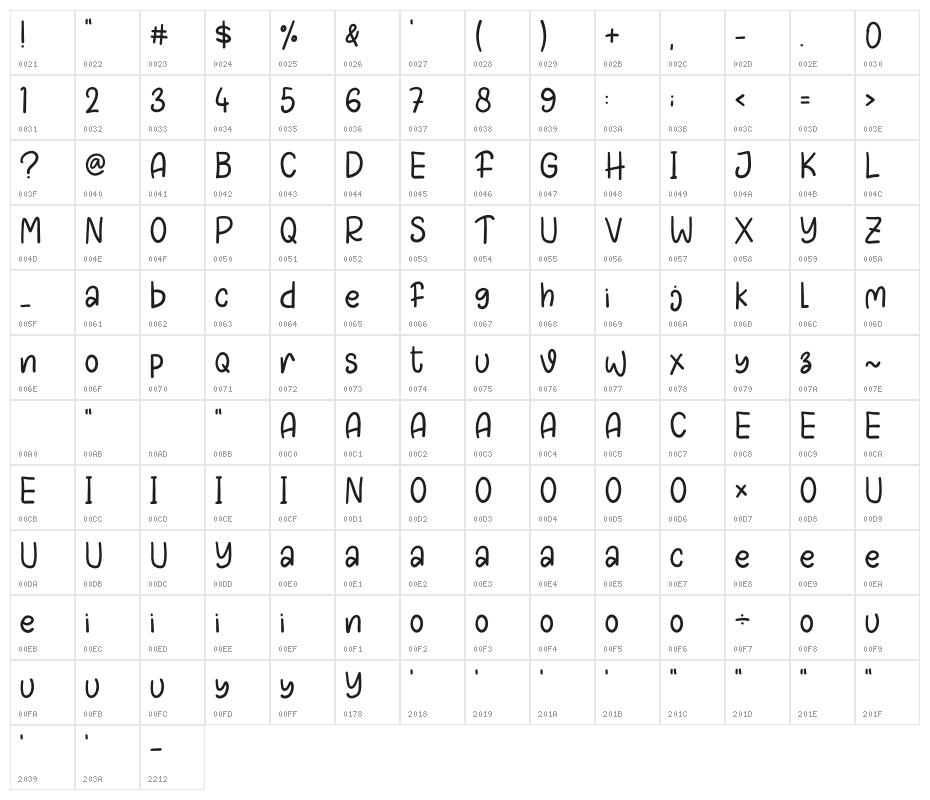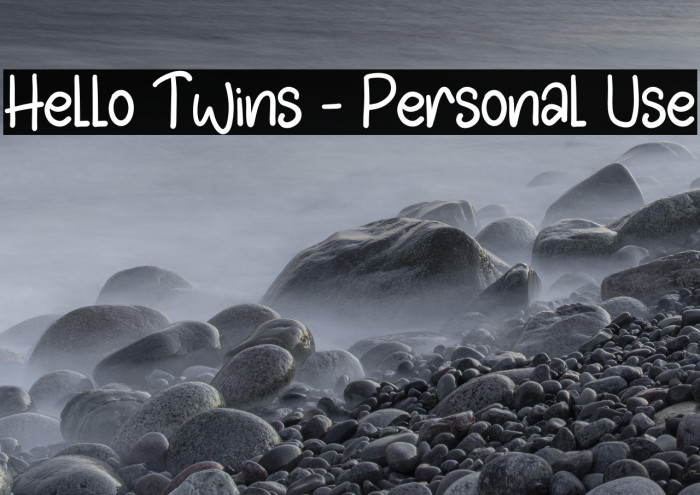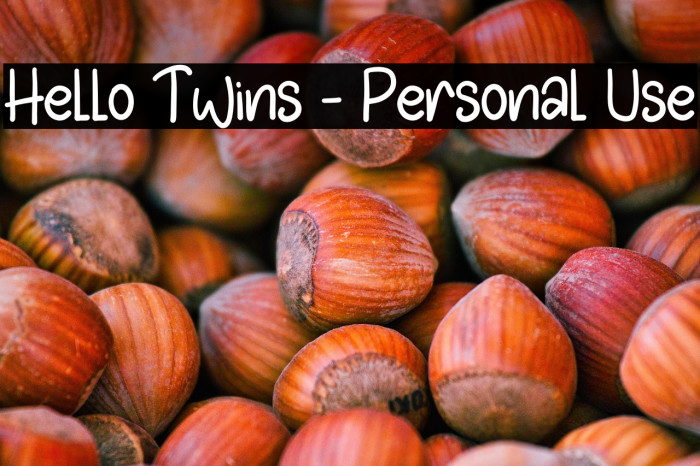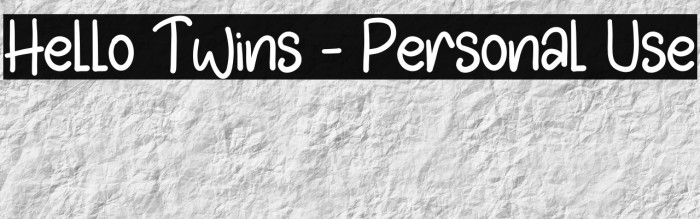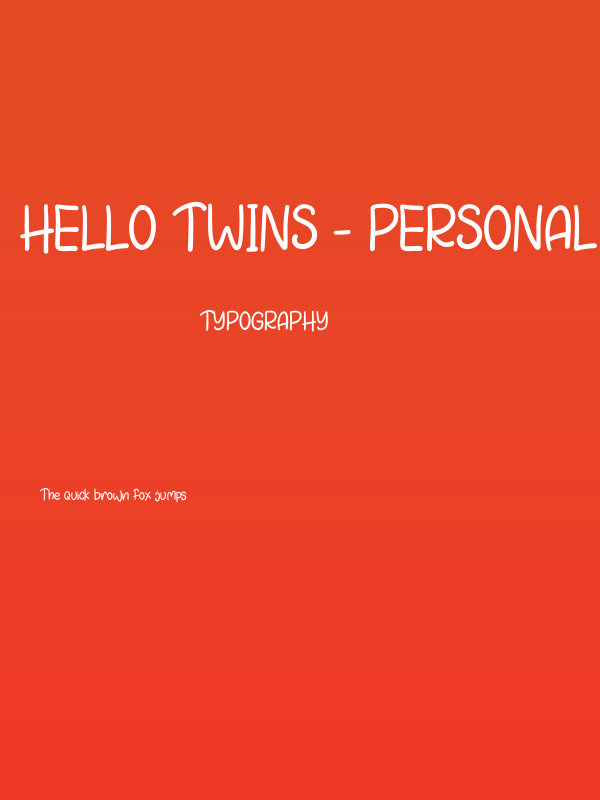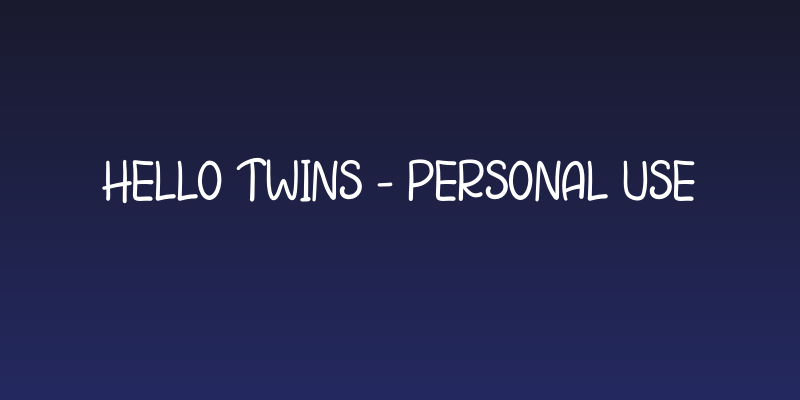
Hello Twins - Personal Use Font
Hello Twins - Personal Use Description
This playful and whimsical font features rounded, smooth edges with a hand-drawn appearance. The characters are slightly irregular, giving them a friendly and approachable feel. The uppercase and lowercase letters maintain a consistent style, with a slight slant that adds to the casual aesthetic. Numbers and special characters are designed to match the overall playful theme, making this font suitable for informal and creative projects. The strokes are uniform in thickness, providing a balanced look across all characters. This font is ideal for projects that require a touch of personality and charm.
| Overall Style | Playful, Casual |
| Proposed Projects | Children's books, greeting cards, playful branding, informal invitations, and creative posters. |